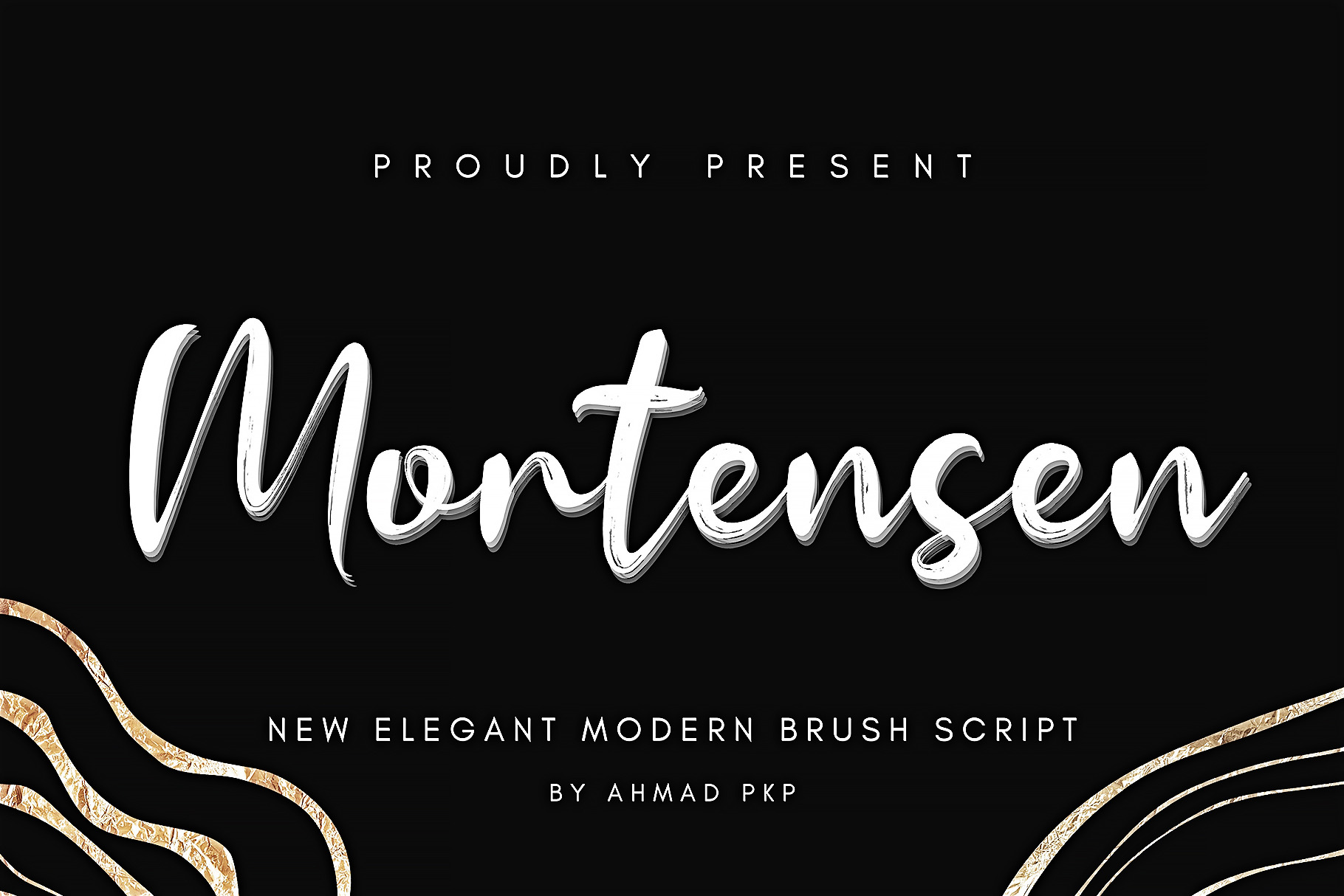
Mortensen - Modern Brush Font
Mortensen is an expressive handwritten brush font. With thick, rough brush strokes, a fun character with a bit of binder and alternatives. To give you extra creative work. This Mortensen font is great for logo designs, social media, Movie Titles, Book Titles, short text even long text fonts and is great for your secondary text fonts with sans or serif. Create stunning masterpieces with the Mortensen font.